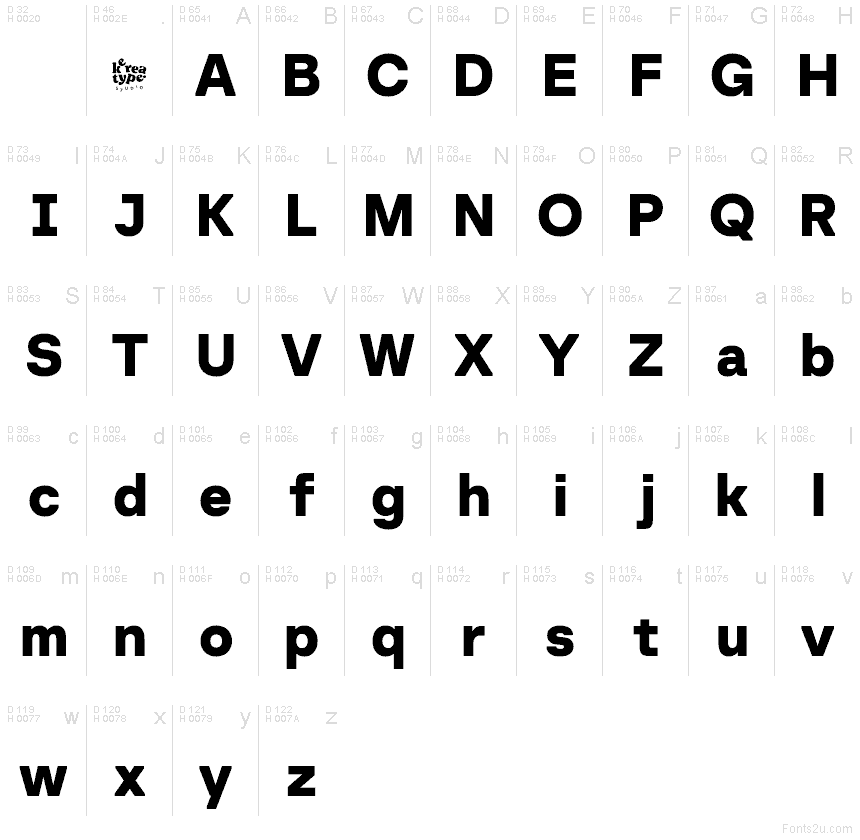
Baru Sans Demo Black
Baru Sans Black font by Kereatype Studio is a free heavy sans serif typeface that solves a familiar challenge: getting big, confident impact without muddying the details. Its chunky strokes, open counters, and even rhythm keep words crisp and legible, while the Baru Sans family DNA gives it a clean, contemporary vibe. Letters feel solid and inky, yet the spacing stays calm, so headlines land hard and read fast.
Using Baru Sans Black, you can anchor posters, banners, packaging, event titles, social graphics, and bold logos with effortless authority. This free font shines when set large with a touch of tight tracking; for longer copy, pair it with a lighter weight from the Baru Sans family or a straightforward humanist sans to keep the voice unified.